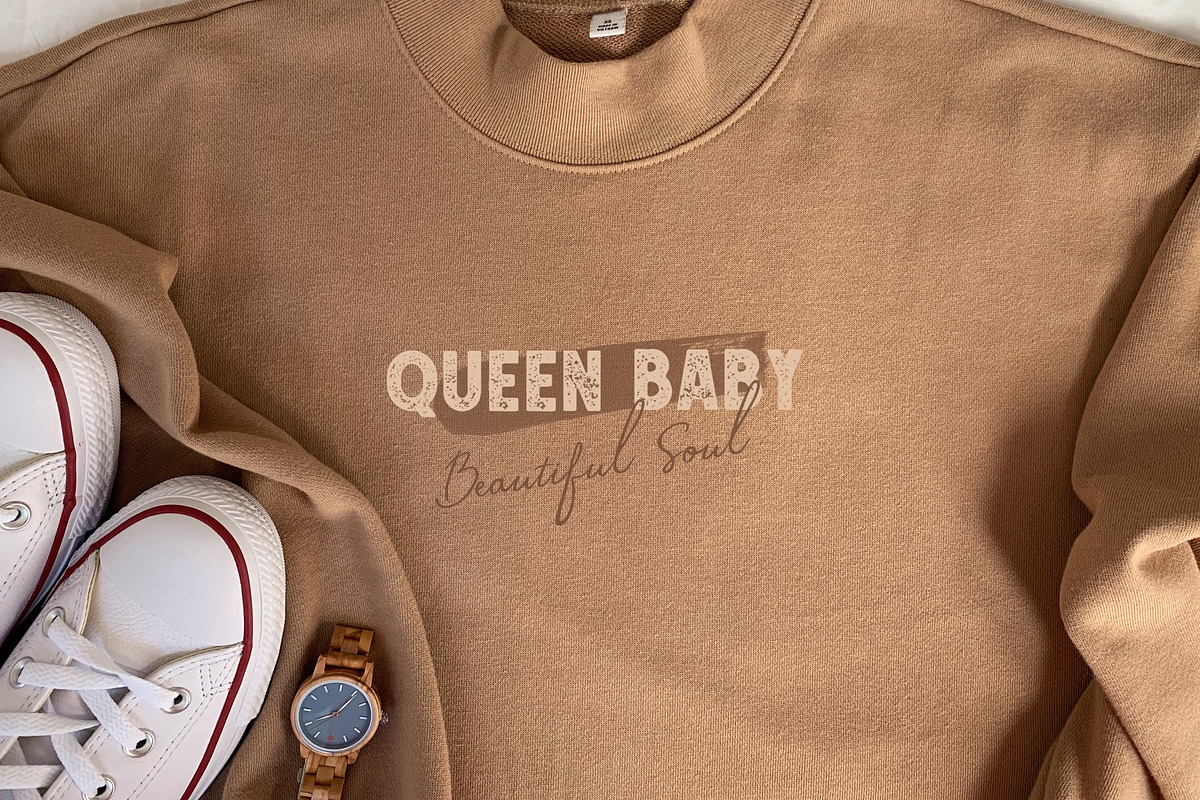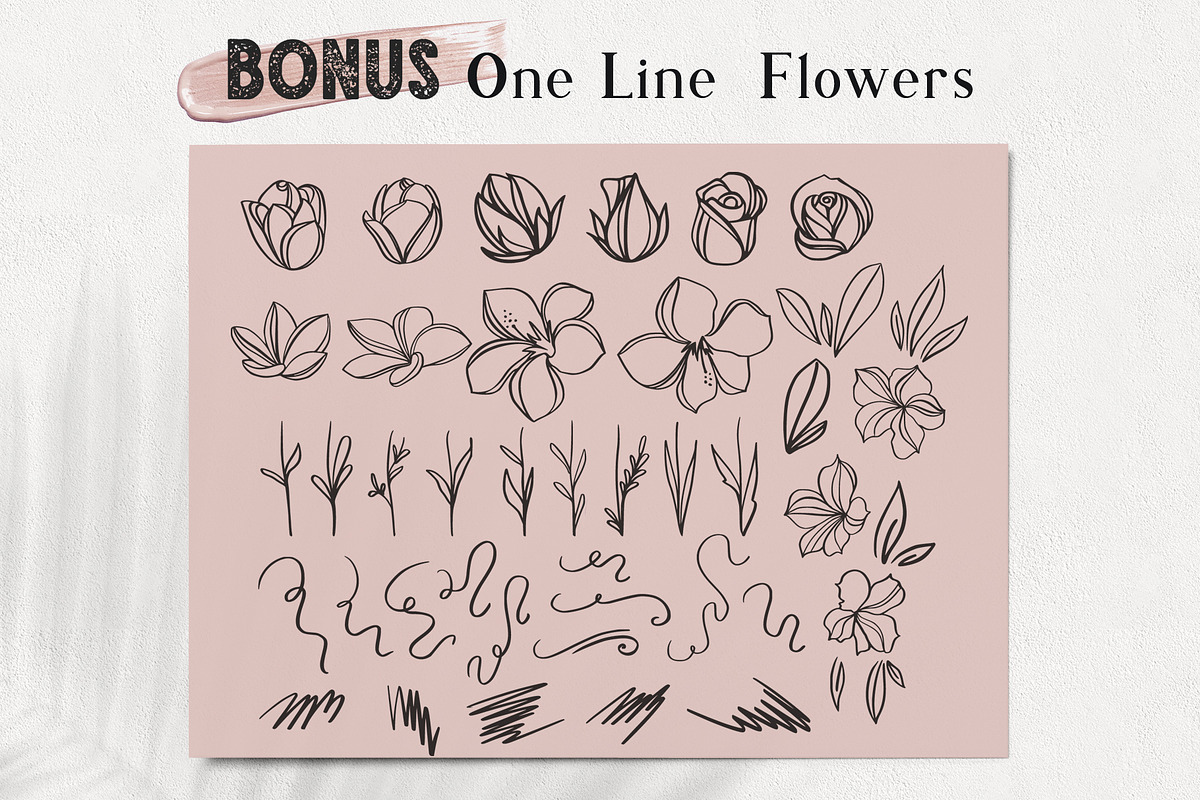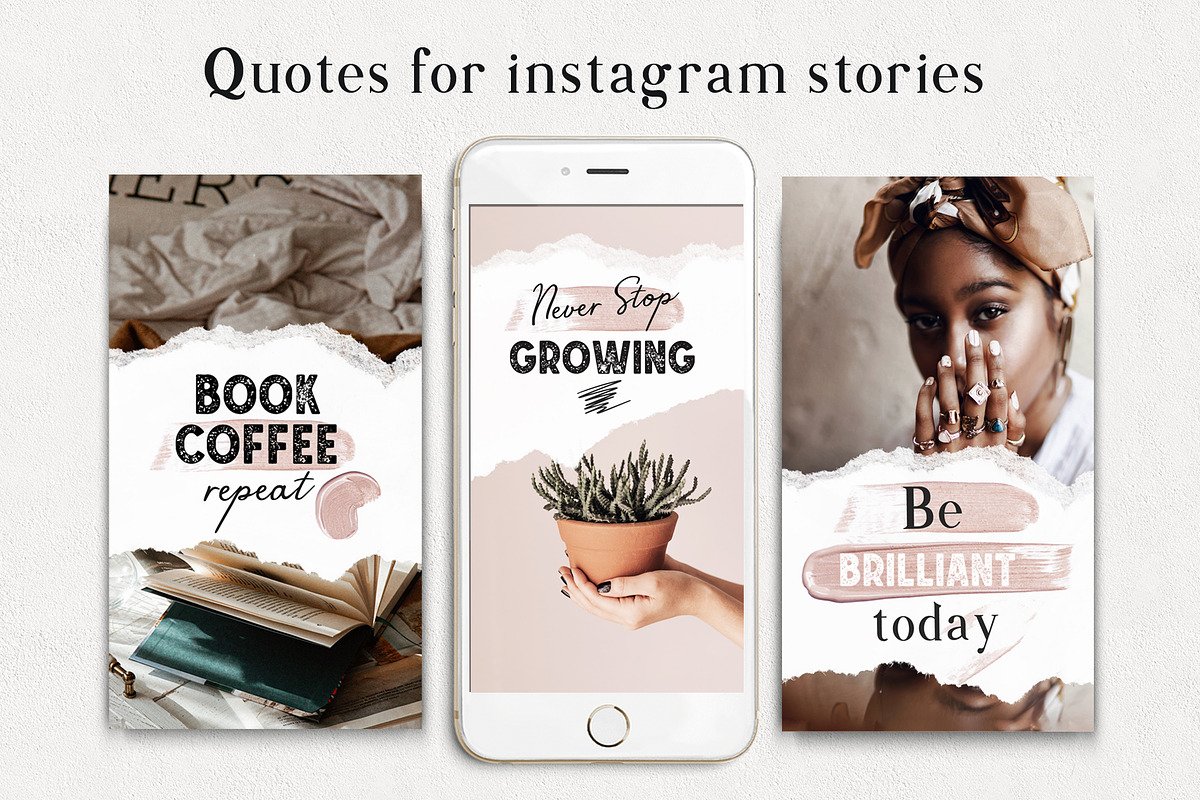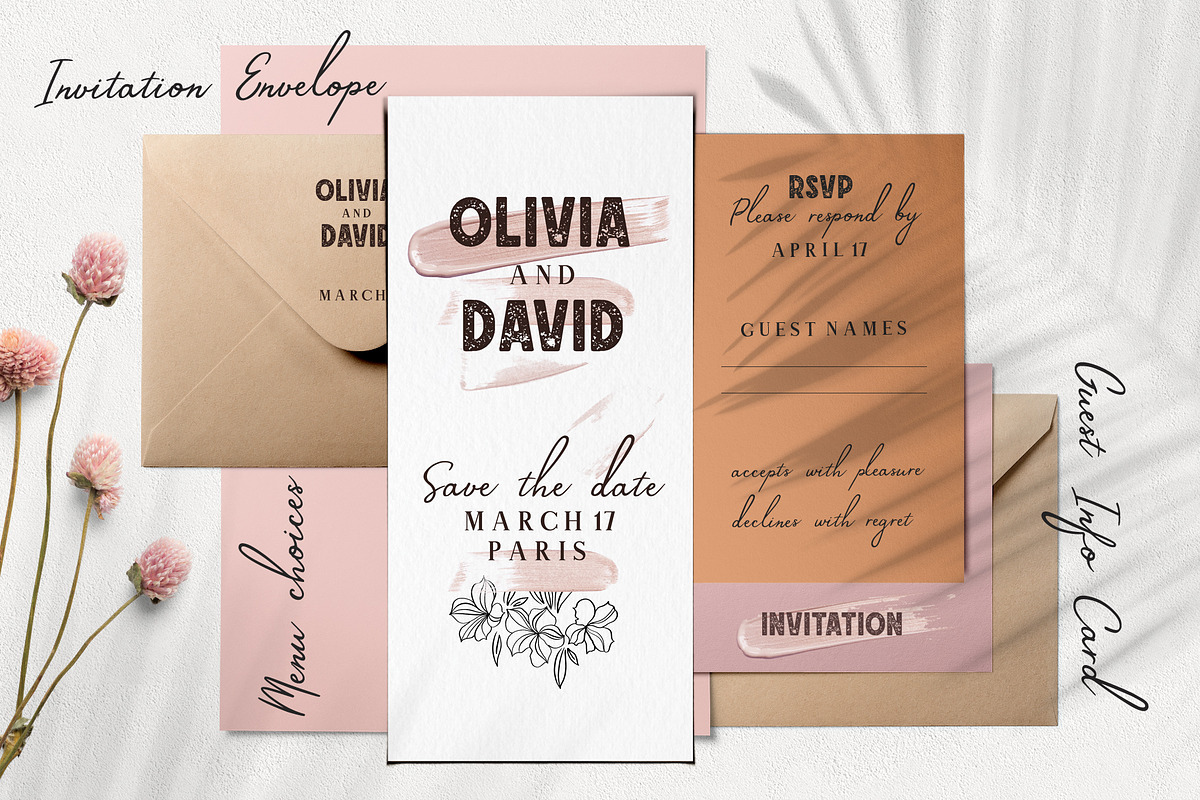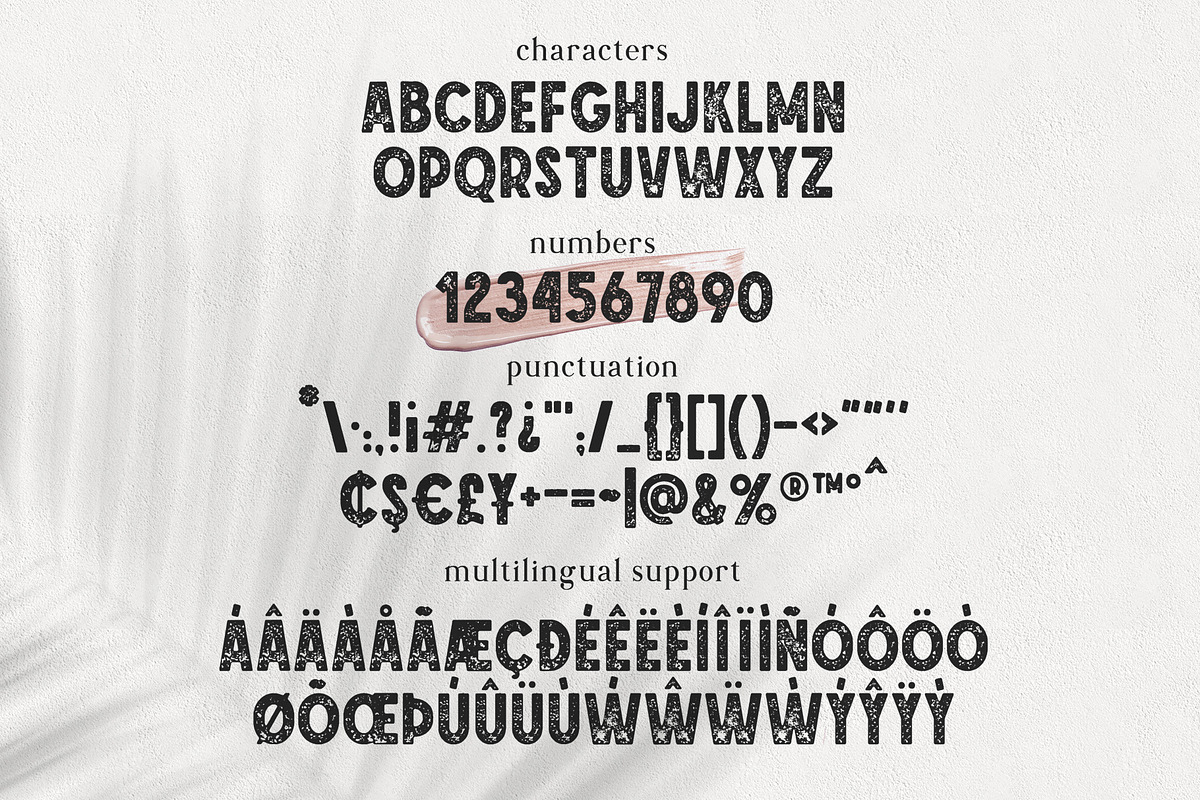
Bonjour Sans Serif Font
BONJOUR - a regular sans serif font with grunge style. Includes uppercase and lowercase letters, punctuation, numbers, multilingual support.
- Includes uppercase and lowercase letters, punctuation, numbers, multilingual support.
Why Bonjour Sans Serif Font is worth a look
Bonjour Sans Serif Font by BarcelonaShop fits naturally into Branding, posters, packaging, typography.